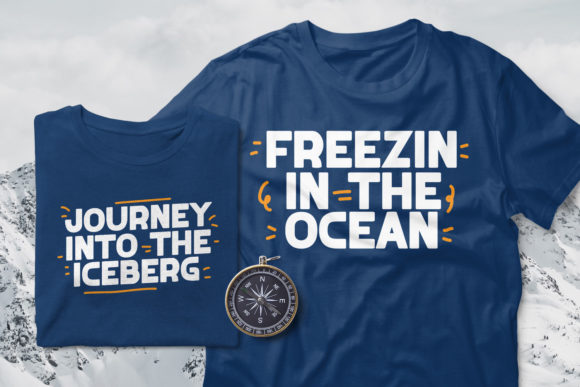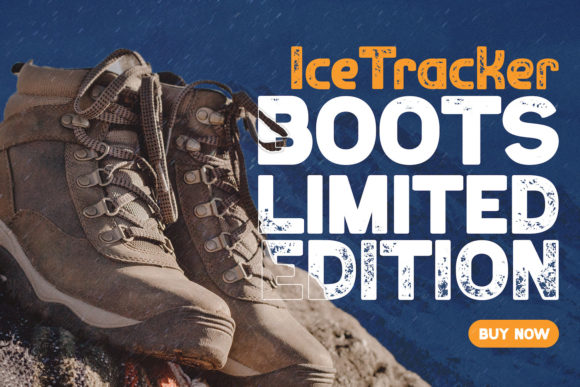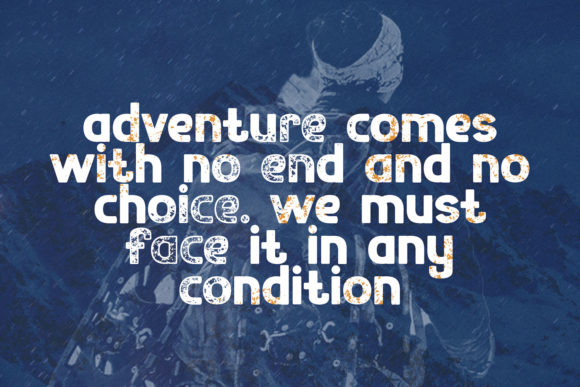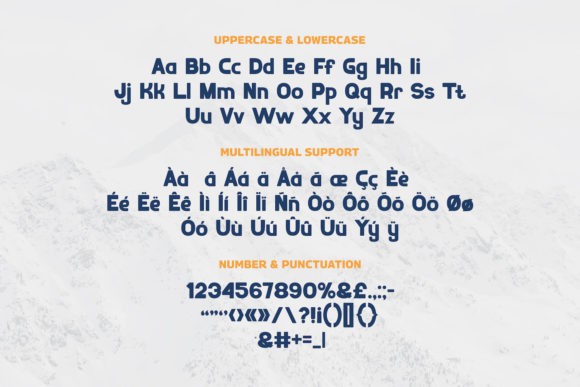
Introducing Blizza Font: The Ultimate Display Font for Bold Designs
Are you a designer or crafter looking for a font that makes a statement? Look no further than Blizza Font, a thick lettered and neat display font that’s perfect for creating bold and eye-catching designs. In this article, we’ll dive into the features and benefits of Blizza Font, and explore how it can elevate your designs to the next level.
What is Blizza Font?
Blizza Font is a display font that’s designed to make a bold statement. Its thick letters and neat design make it perfect for use in a variety of applications, from t-shirts and sportswear to logos, advertisements, and clothing. Whether you’re a professional designer or a DIY crafter, Blizza Font is a versatile and easy-to-use font that’s sure to become a go-to in your design arsenal.
Key Features of Blizza Font
- Thick Lettered: Blizza Font features thick, bold letters that are perfect for creating eye-catching designs.
- Neat Design: The font’s neat design ensures that your text is always legible and easy to read.
- Versatile: Blizza Font is suitable for use in a wide range of applications, from t-shirts and sportswear to logos and advertisements.
Benefits of Using Blizza Font
So why choose Blizza Font for your designs? Here are just a few benefits of using this versatile display font:
- Adds Impact: Blizza Font’s bold, thick letters add impact and emphasis to your designs, making them perfect for creating eye-catching headlines and titles.
- Enhances Legibility: The font’s neat design ensures that your text is always legible, even at small sizes.
- Boosts Creativity: With Blizza Font, you can create a wide range of designs, from bold and edgy to clean and modern.
- Saves Time: The font’s ease of use saves you time and effort, allowing you to focus on other aspects of your design.
Design Ideas Using Blizza Font
So what can you create with Blizza Font? Here are just a few design ideas to get you started:
- T-Shirts: Use Blizza Font to create bold and eye-catching t-shirt designs that are perfect for casual wear.
- Sportswear: The font’s thick letters and neat design make it perfect for use in sportswear designs, such as jerseys and hoodies.
- Logos: Blizza Font is a great choice for logos, particularly for businesses that want to make a bold statement.
- Advertisements: Use Blizza Font to create eye-catching advertisements that grab attention and drive results.
- Clothing: The font’s versatility makes it perfect for use in a wide range of clothing designs, from casual wear to formal wear.
| Font Name | Blizza Font |
| Author | Runsell Graphic |
Blizza Font is a versatile and easy-to-use display font that’s perfect for designers and crafters looking to create bold and eye-catching designs. With its thick letters and neat design, it’s suitable for use in a wide range of applications, from t-shirts and sportswear to logos and advertisements. Whether you’re a professional designer or a DIY crafter, Blizza Font is a great choice for adding impact and emphasis to your designs.